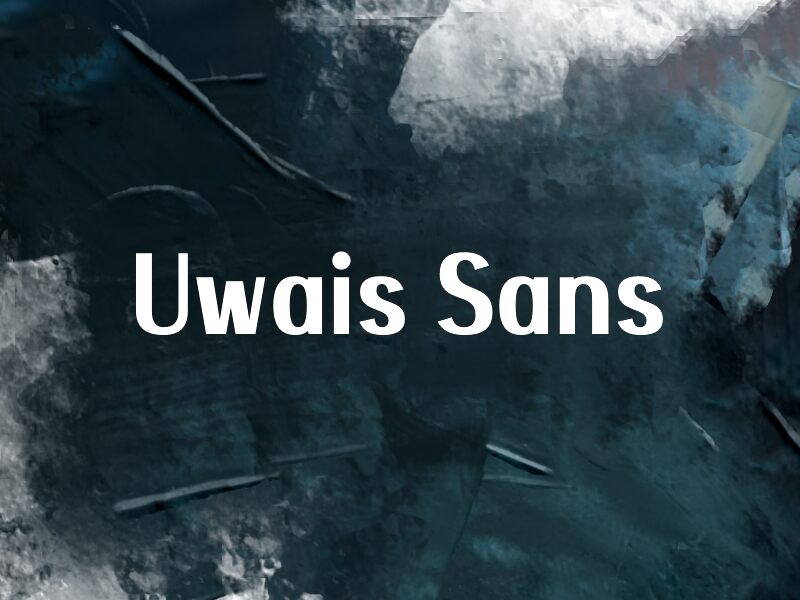
Uwais font by wepfont.com is a professional and clean sans-serif typeface with neutral overtones. This geometric font exhibits a streamlined appearance that makes it compatible with many contemporary applications either in print or digital design. Thanks to its minimalist composition, it is a versatile asset for many branding projects and more. And because it is a free font, it can make an ideal starter base for new and experienced designers alike.
The versatile aspect of this typeface allows it to fit into many different industries. From tech-focused branding to the automotive industry, its professional tone has just the right amount of seriousness. It also does not lose legibility in large blocks of text, so it can have dual usage as both a display and body font. Its linear structure can also act as an ideal base in user interface creations.
Uwais Sans is a modern sans-serif font designed for versatility and clarity. It is perfect for both digital and print applications, making it an ideal choice for a wide range of creative projects. This free font features clean lines and contemporary aesthetics, ensuring excellent readability in various sizes and formats. Whether you are designing a website, creating marketing materials, or developing an eye-catching poster, Uwais Sans will enhance your work with its stylish appearance.